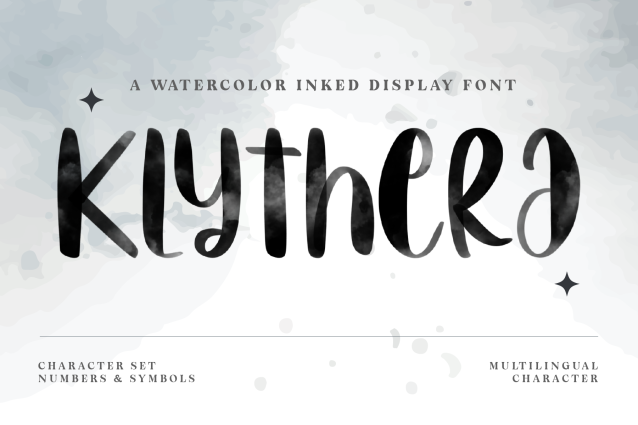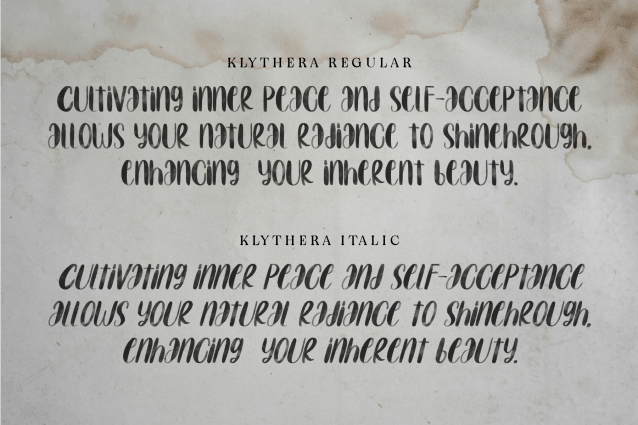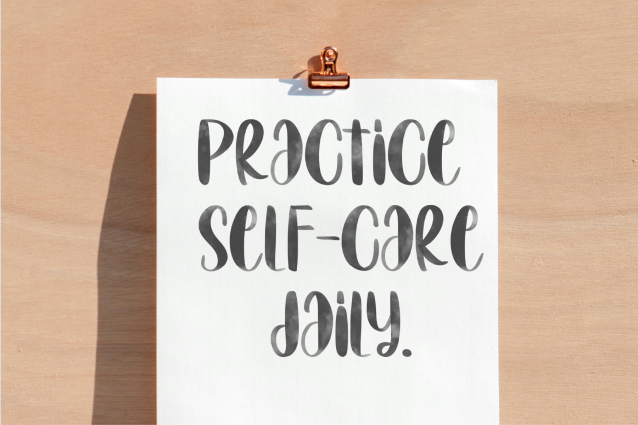
Klythera Font
Klythera Font is a watercolor-inked display font that flows like brushstrokes on handmade paper. With its elegant curves and natural ink texture, each letter feels like a soft whisper of creativity—fluid, expressive, and full of artistic soul. This font blends organic charm with display power, making it perfect for wedding invites, art prints, logos, quotes, packaging, and any design that needs a personal and graceful touch.